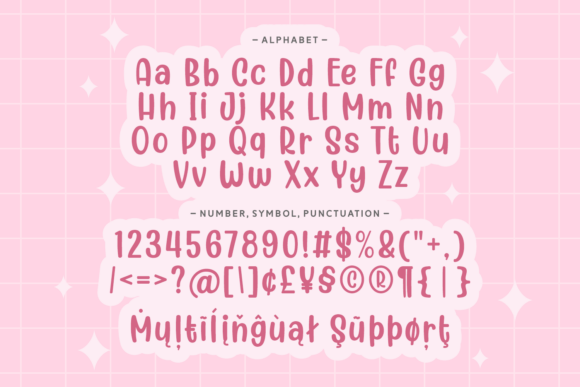
The Great Mother Font: A Sweet Addition to Your Design Toolkit
I’ll never forget the time I was working on a Valentine’s Day project for a client, and I just couldn’t find the right font to convey the warmth and affection they wanted. I scrolled through page after page of font options, but nothing seemed quite right. That was until I stumbled upon the Great Mother font. With its charming, playful design, it instantly brought a smile to my face and perfectly captured the essence of the project. In this article, I’ll share my experience with the Great Mother font, its features, and how to make the most of it in your designs.
A Personal Review of Great Mother
I’ve had the pleasure of working with the Great Mother font on several projects, and here’s what I think:
- ✨ It’s incredibly versatile and can be used for a wide range of projects, from romantic Valentine’s Day cards to whimsical craft projects.
- ✅ The font has a wonderful, hand-crafted feel that adds a touch of personality to any design.
- 💕 It’s perfect for conveying emotions and adding a sense of warmth and affection to your designs.
Of course, no font is perfect, and there are a few small quirks to be aware of:
- 🤔 Some of the letters may appear a bit too condensed or stretched, which can affect readability at smaller font sizes.
- ⚠️ The font may not be suitable for very formal or professional projects, as it has a distinctly playful and informal feel.
The Story Behind Great Mother
The Great Mother font was designed by a talented typographer who wanted to create a font that captured the warmth and affection of a loving mother. Inspired by handwritten letters and vintage cards, the designer carefully crafted each letter to convey a sense of kindness and playfulness. The result is a font that’s both charming and versatile, perfect for a wide range of creative projects.
| Author | Eightde |
- Q: What type of projects is Great Mother best suited for?
- A: Great Mother is perfect for romantic projects, Valentine’s Day cards, craft projects, and any design that requires a touch of warmth and affection.
- Q: Is Great Mother a difficult font to read?
- A: Great Mother is generally easy to read, but some letters may appear a bit condensed or stretched at smaller font sizes. Experiment with different font sizes and styles to find the perfect balance for your design.